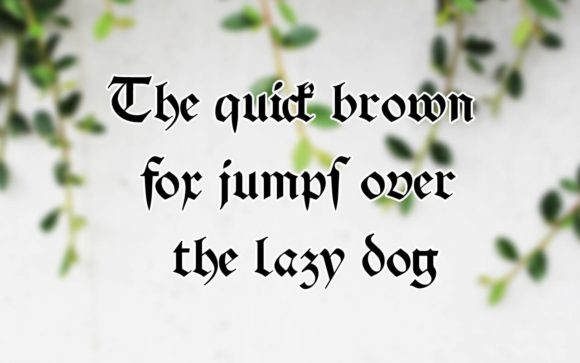
Introduction to Schwaben Font
Schwaben is an impressive blackletter font featuring characters that seem to come from vintage and exquisite times.
Use this unique typeface to take your creations out of the ordinary Author: Peter Wiegel.
Key Features of Schwaben Font
Why Choose Schwaben Font?
Schwaben Font offers exceptional quality and versatility, making it a valuable addition to your design toolkit. Whether you’re creating for personal projects or commercial use, Schwaben Font delivers professional results.